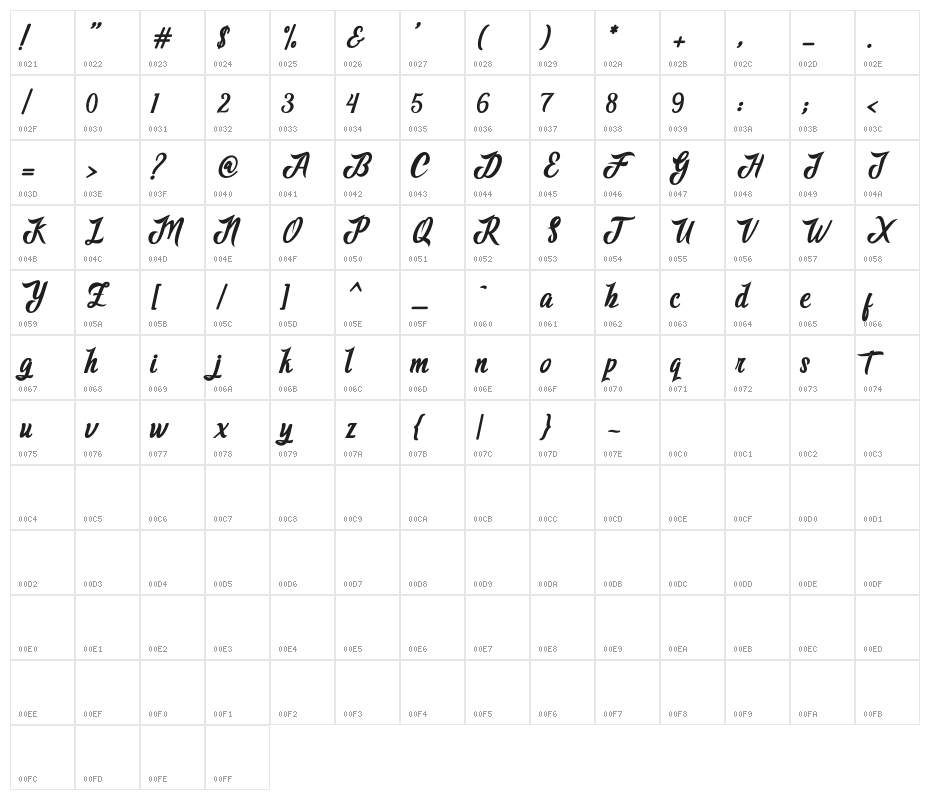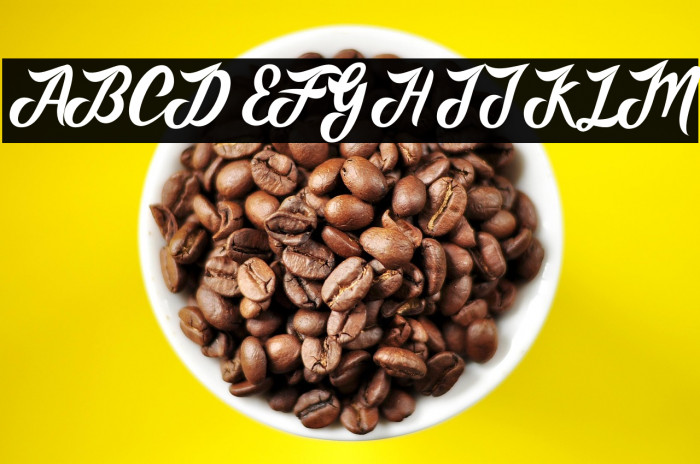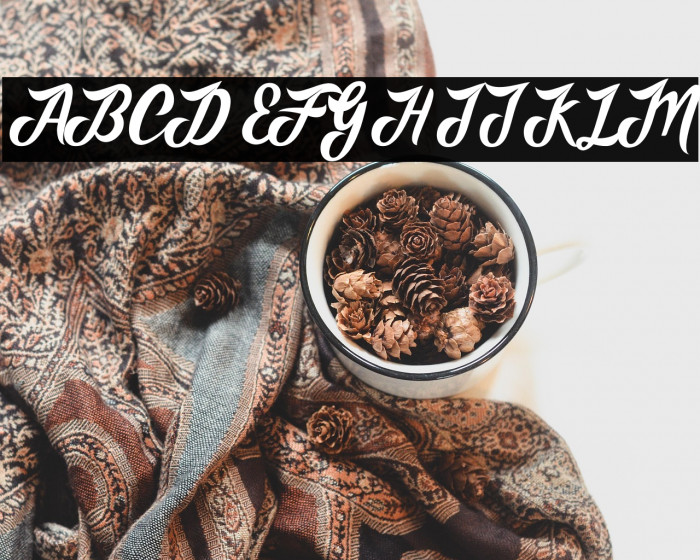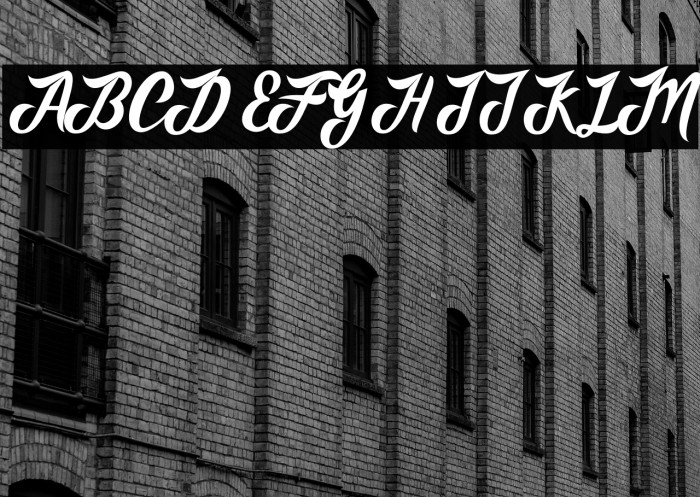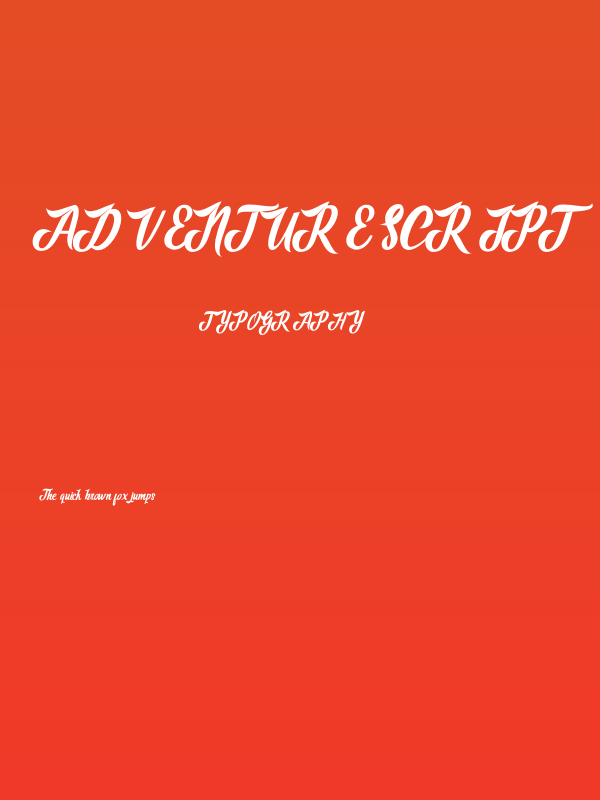
AdventureScript Font
AdventureScript Description
This font features a dynamic and flowing script style, characterized by its elegant and cursive letterforms. The uppercase letters are bold and sweeping, with a sense of movement that suggests a handwritten quality. The lowercase letters maintain a consistent flow, with smooth connections between characters, enhancing its readability. The numerals and special characters are designed to match the script's fluidity, providing a cohesive look across all elements. This font's overall appearance is both sophisticated and approachable, making it suitable for a variety of creative applications.
| Use Case | Logos, Invitations, Branding |
| Proposed Projects | Ideal for wedding invitations, greeting cards, branding projects, and elegant packaging designs. |